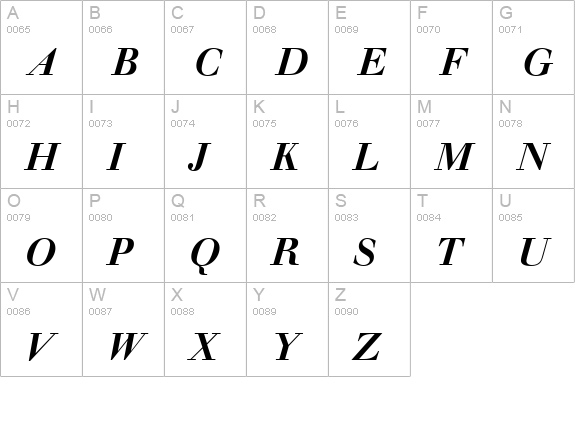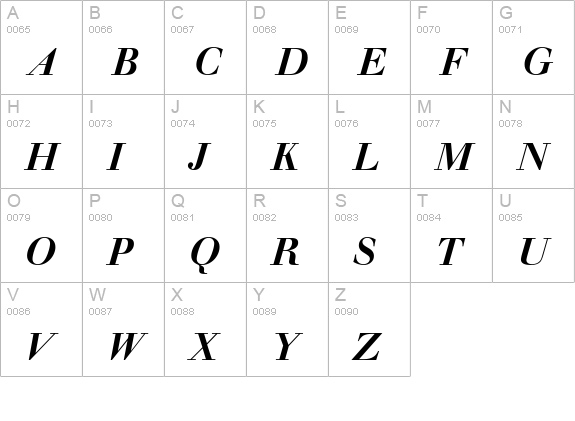
Walbaum-Original-Medium-Italic is a balanced, medium-weight, italic variant in the Walbaum typeface family \xE2\x80\x94 well suited to sub-headlines, navigation, and balanced editorial work.
Walbaum Original Medium Italic is a classic and elegant typeface that exudes sophistication and style. With its sleek and refined design, this font is perfect for adding a touch of elegance to any project. The medium weight and italic styling of Walbaum Original create a sense of balance and grace, making it a versatile choice for a variety of design applications. What's even better is that Walbaum Original Medium Italic is available for free download at FontsMarket.com. This means you can easily access this beautiful font and incorporate it into your projects without any cost. Whether you're working on a branding project, editorial design, or any other creative endeavor, Walbaum Original Medium Italic is sure to elevate your work with its timeless appeal and effortless charm. Don't miss out on the opportunity to add this stunning font to your collection. Download Walbaum Original Medium Italic for free today and explore the endless possibilities it offers for your design projects.